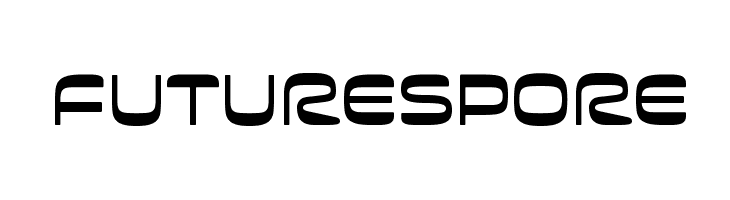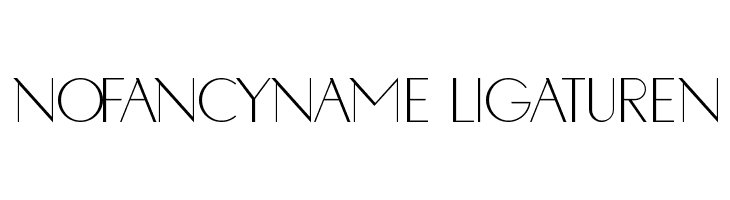
A futuristic, geometric font with rounded edges and a sleek design.
A modern, geometric font with clean lines and a sleek, sophisticated appearance.
A bold, geometric font with a futuristic and modern design.
A bold, fragmented font with an abstract and chaotic design.
A bold, abstract font with fragmented, angular shapes and a modern artistic flair.
A playful, hand-drawn font with an artistic and whimsical style.
A thin, elegant font with a mix of modern and handwritten styles.
A graceful script font with flowing, cursive letters and elegant loops.
A playful and elegant script font with flowing, interconnected letters.
A playful, handwritten-style font with elegant, slender characters.